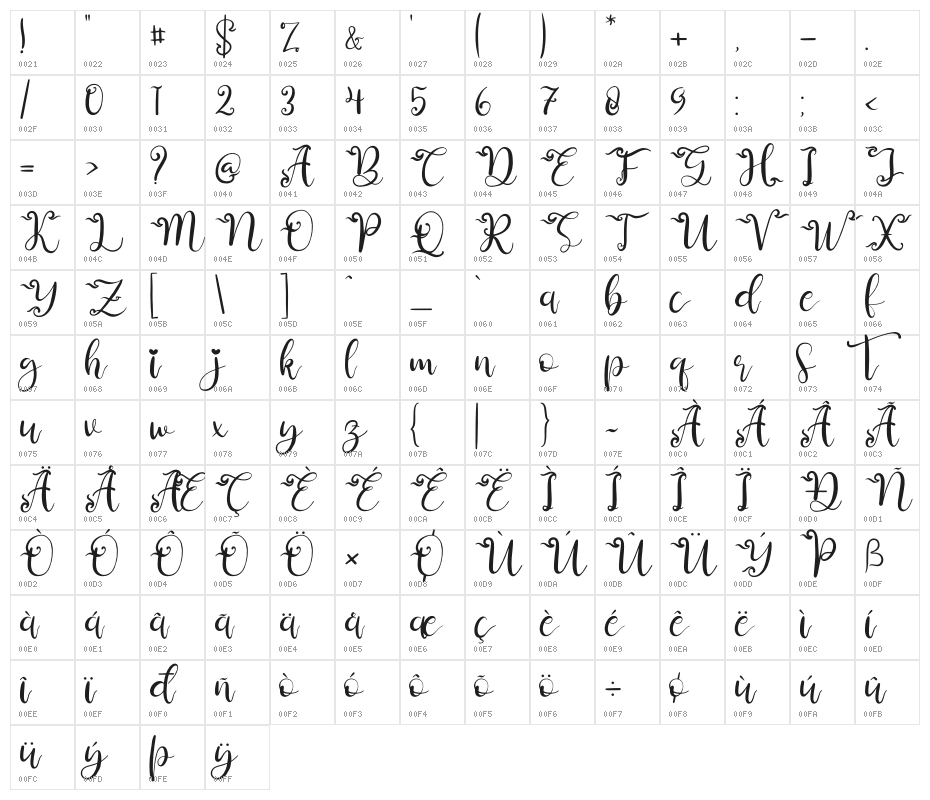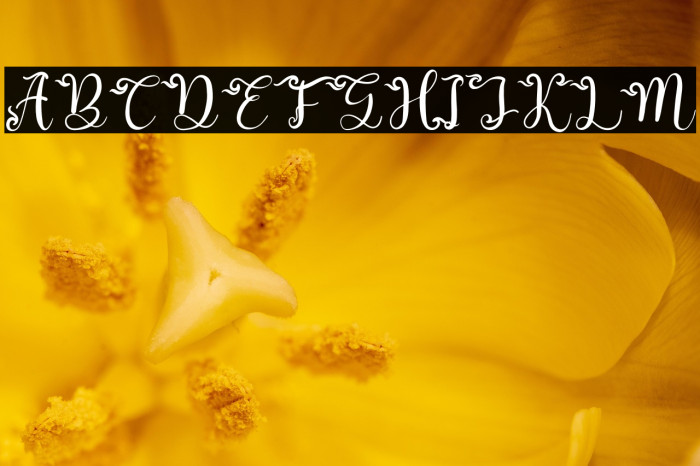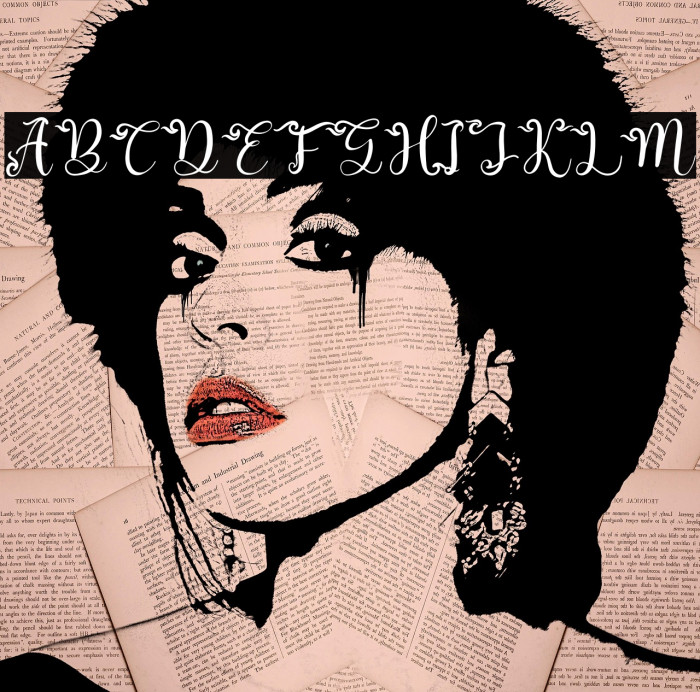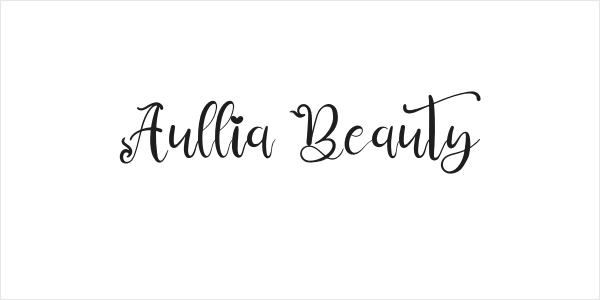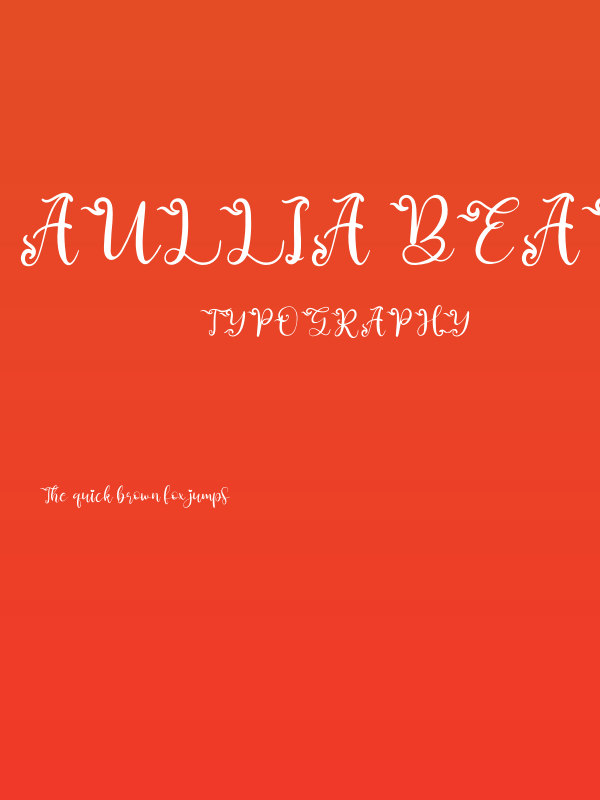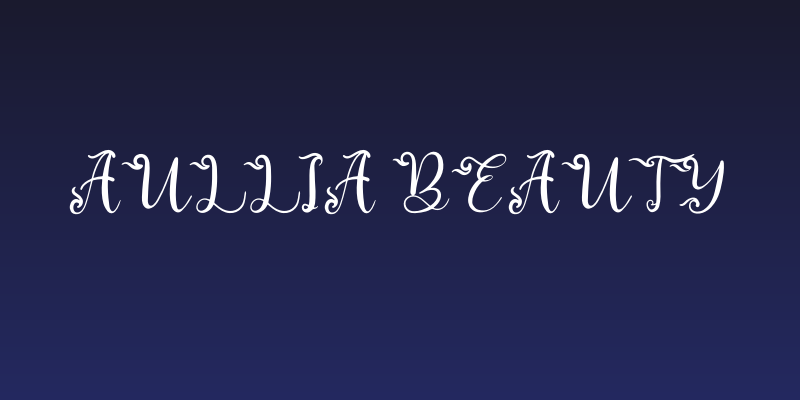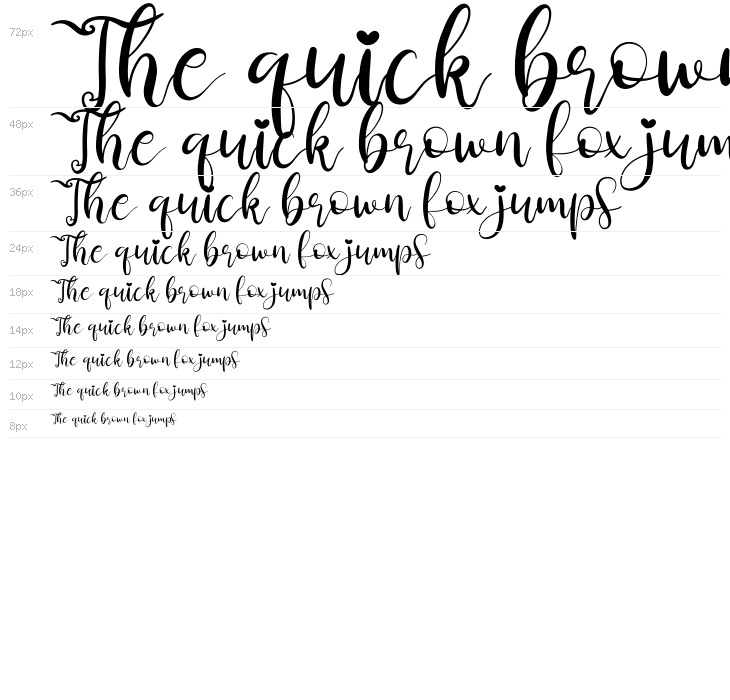
Aullia Beauty Font
Aullia Beauty Description
This font exudes elegance and charm with its intricate script style, featuring flowing curves and decorative swashes. The uppercase letters are adorned with elaborate flourishes, giving them a sophisticated and ornate appearance. The lowercase letters maintain a graceful continuity, with smooth transitions and a handwritten feel. Numbers and special characters are equally stylized, incorporating the same artistic flair. This font is perfect for projects that require a touch of elegance and personality, such as wedding invitations, branding, and decorative headings.
| Proposed Projects | Ideal for wedding invitations, branding, decorative headings, and elegant stationery. |